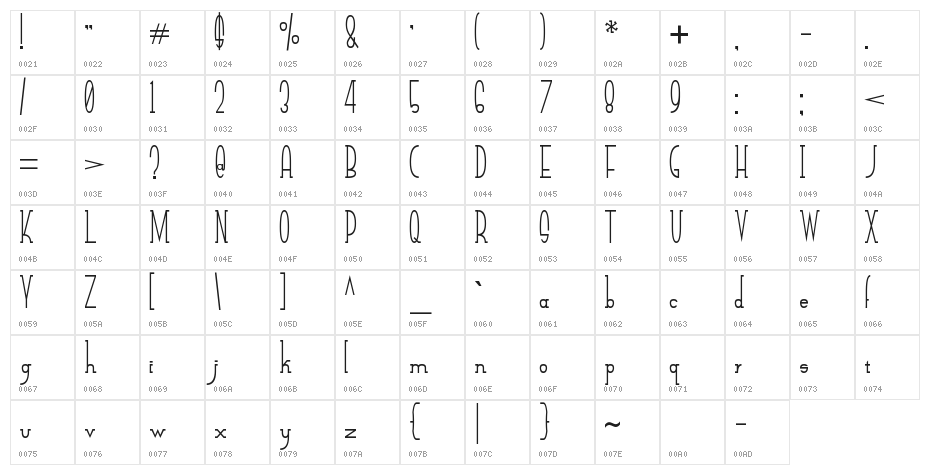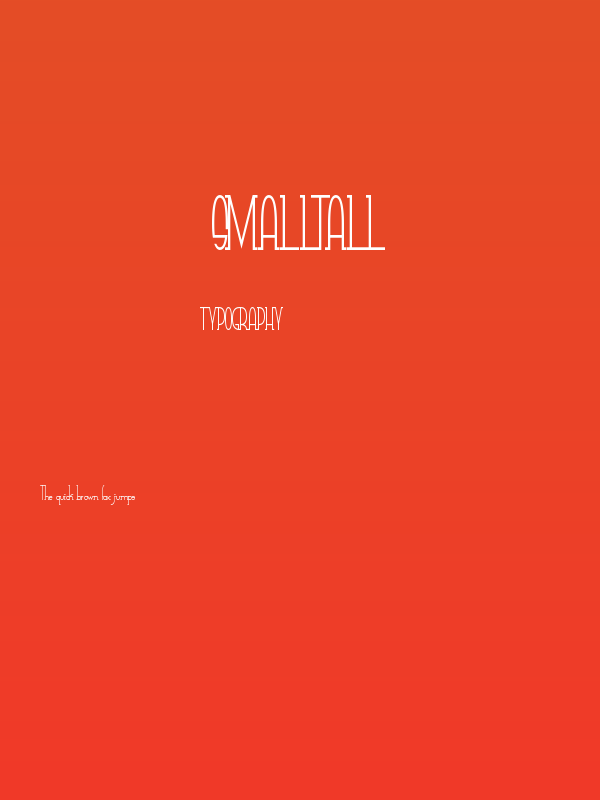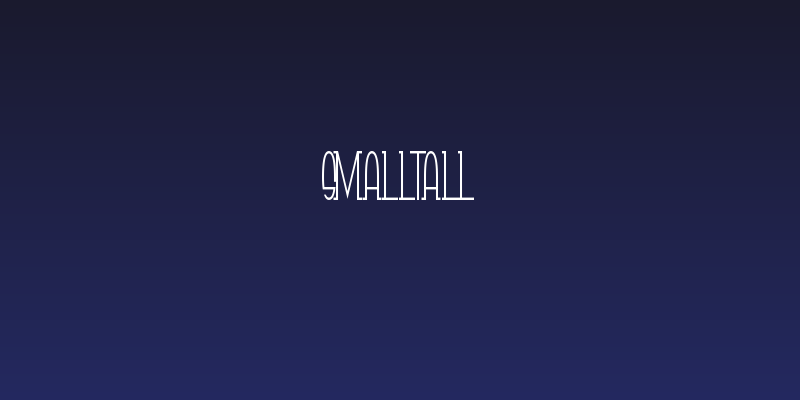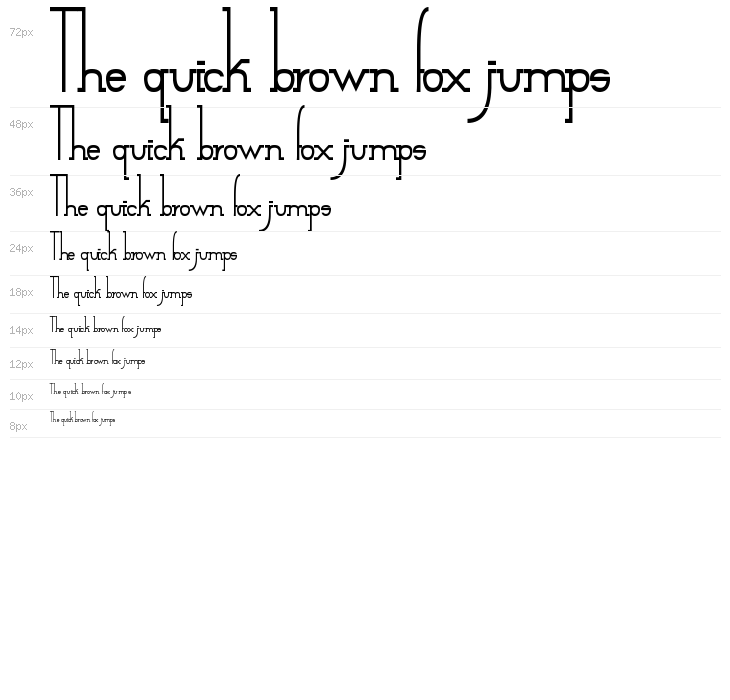
SmallTall Font
SmallTall Description
This font features an elongated and narrow design, giving it a unique and striking appearance. The uppercase letters are particularly tall and slender, creating a sense of elegance and sophistication. The lowercase letters maintain a consistent style, with a slightly more compact form that complements the uppercase characters. The numbers and special characters follow the same elongated style, ensuring uniformity across all elements. This font's distinct vertical emphasis makes it ideal for creating impactful visual statements.
| Proposed Projects | Ideal for modern posters, fashion magazines, and branding projects that require a bold and elegant statement. |